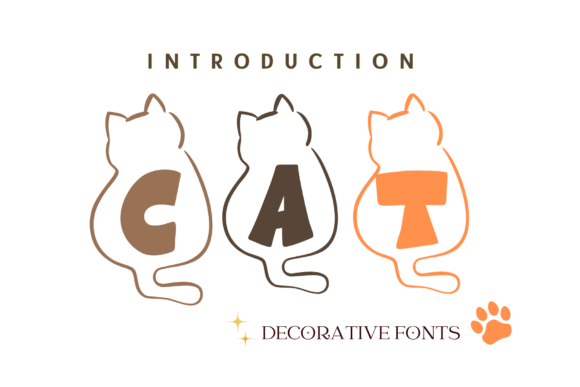
The Purr-fect Typography: Unleashing the Fun with Cat Font
Have you ever found yourself staring at a blank page, trying to come up with the perfect design concept? That’s where the magic happens, and inspiration strikes. For many designers, it’s the little things that spark creativity – a quirky pattern, a bold color, or in this case, a font that’s sure to put a smile on your face.
Enter Cat Font, a delightful typographic creation that features letters designed to resemble the soft, furry texture of a cat’s back. This whimsical font is perfect for adding a playful touch to your designs, from greeting cards to social media graphics. Whether you’re a seasoned designer or just starting out, Cat Font is a valuable addition to your toolkit, allowing you to inject a bit of fun and personality into your work.
Cat Font Key Features
- Font Family: Cat Font is a digital font family designed for use in various design applications.
- Character Set: Includes a wide range of characters, including uppercase and lowercase letters, numbers, punctuation marks, and special characters.
- Unique Characteristics: Features a distinctive, playful design with cat-inspired elements, making it ideal for creative projects and designs that require a whimsical touch.
Designer Review: Cat Font
Overall, I have mixed feelings about Cat Font. On the one hand, I appreciate its unique and quirky personality. The font has a playful and whimsical touch that can add a lot of character to a design. ✨ I love how it can bring a sense of fun and lightheartedness to a project.
However, I do have some concerns about the font’s limitations. ⚠️ Here are a few things that stood out to me:
- Lack of versatility: While Cat Font is great for casual or creative projects, it may not be the best choice for more formal or professional designs.
- Difficult to read: The font’s quirky shape and irregularities can make it difficult to read, especially in larger blocks of text.
- Not suitable for small sizes: Cat Font may not be the best choice for small text sizes, as it can become difficult to read and may lose its character.
Overall, I think Cat Font is a fun and creative font that can add a lot of personality to a design. However, it’s not a one-size-fits-all solution, and designers should be aware of its limitations before using it in a project.
Cat Font is ideal for:
- Cat-themed designs and merchandise.
- Whimsical and playful branding.
- Illustrations and graphics featuring cats.
Tips for Getting the Most Out of Cat Font
To get the most out of Cat Font, try:
- Experimenting with different font sizes and styles.
- Pairing Cat Font with other playful fonts or graphics.
- Using Cat Font in creative and unexpected ways.
Pacifico is a beautiful, elegant script font perfect for creating a warm and inviting atmosphere. It’s ideal for use in wedding invitations, branding materials, and other creative projects. Pacifico is a more refined and sophisticated alternative to Cat Font, with a softer, more flowing feel.
Great Vibes is a modern, cursive font with a relaxed, laid-back feel. It’s great for use in headings, titles, and other display text, where you want to add a touch of personality and whimsy. While Cat Font has a more playful, quirky feel, Great Vibes is more polished and refined, making it a great choice for designers who want to add some visual interest to their projects.
Carolyna Pro is a elegant, modern script font with a luxurious feel. It’s perfect for use in high-end branding, packaging, and advertising materials, where you want to convey sophistication and style. Carolyna Pro is more refined and sophisticated than Cat Font, with a more subtle, nuanced feel that works well in a variety of contexts.